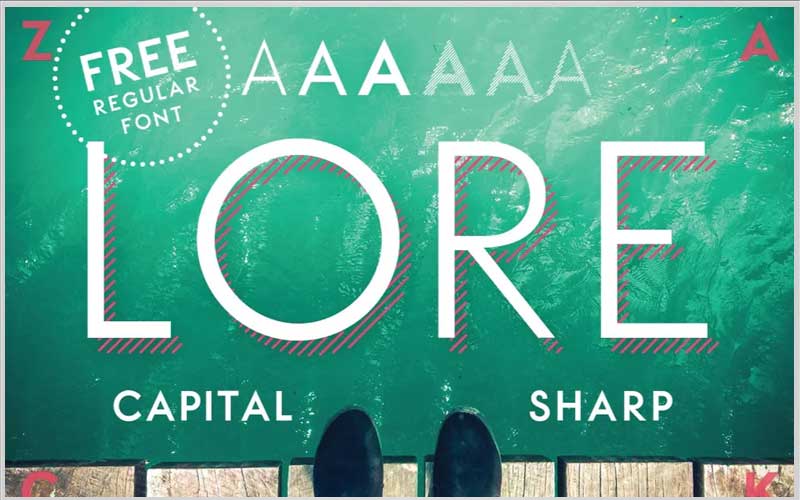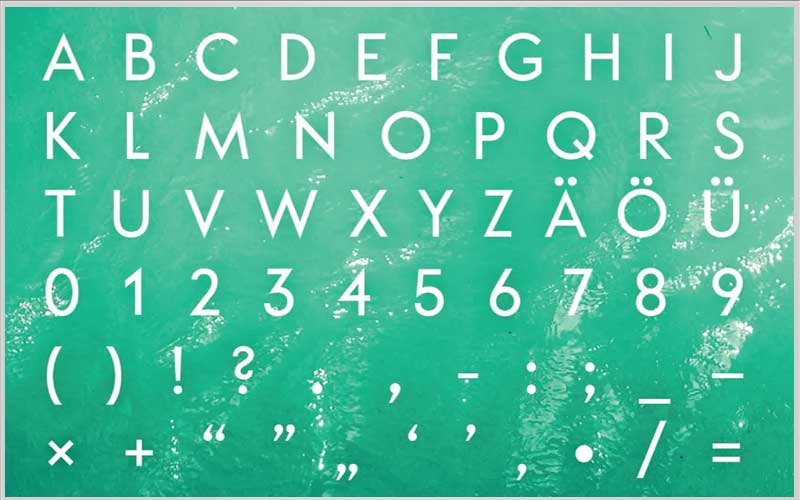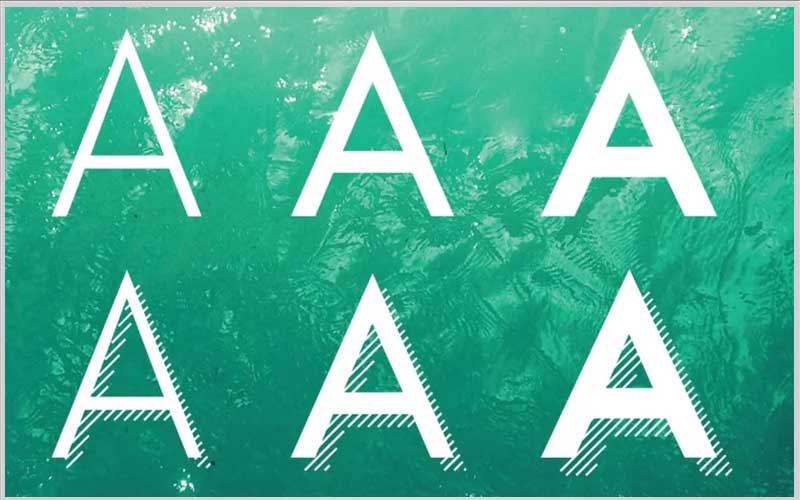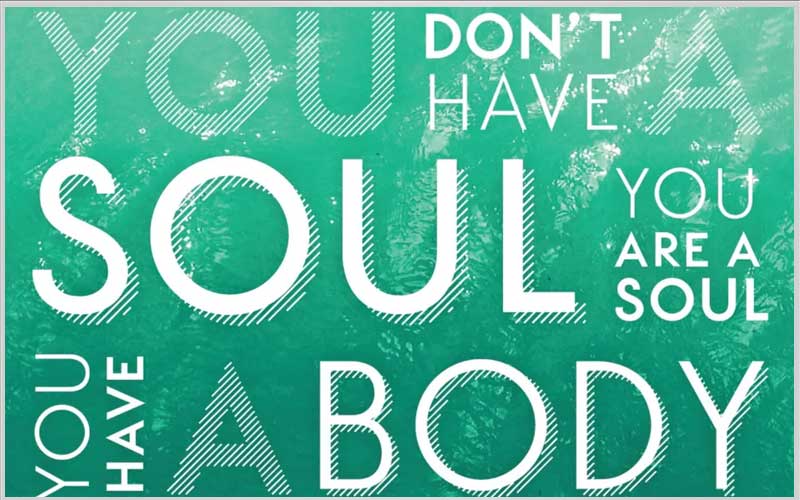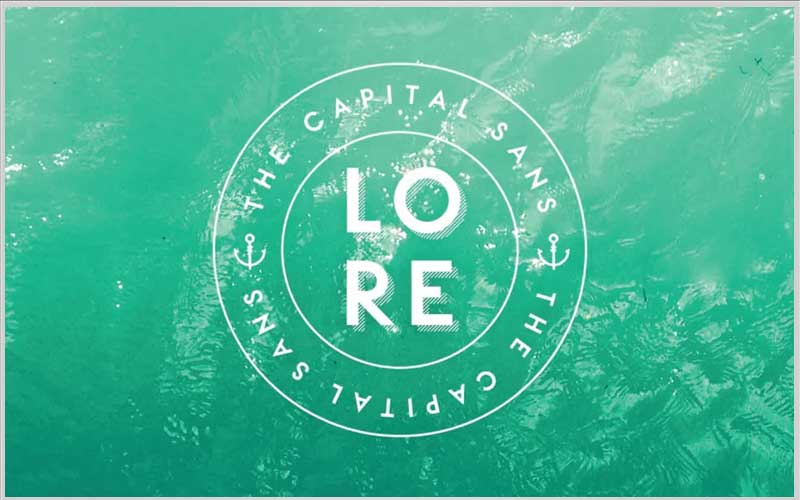
Introducing LORE is a geometric capital font from Studio ZACK that looks great in every context.
Features of this font include:
- Uppercase
- Numbers
- Special Characters